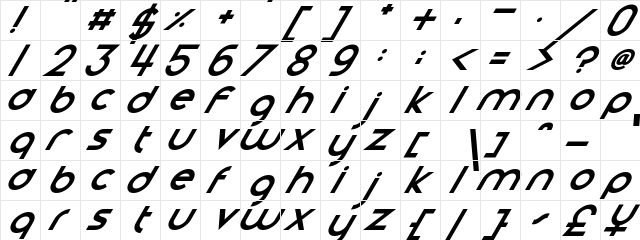
Smooth Circulars Italic
Design Context for Smooth Circulars Typeface
Smooth Circulars takes a measured approach to typography — its balanced proportions and neutral character make it a reliable workhorse for both digital and print work. The dynamic lean of this cut emphasises speed and emphasis in any layout.
Pro Tip: Try Smooth Circulars for annotation and caption copy alongside an upright companion — the contrast in angle creates a dynamic but ordered typographic system.